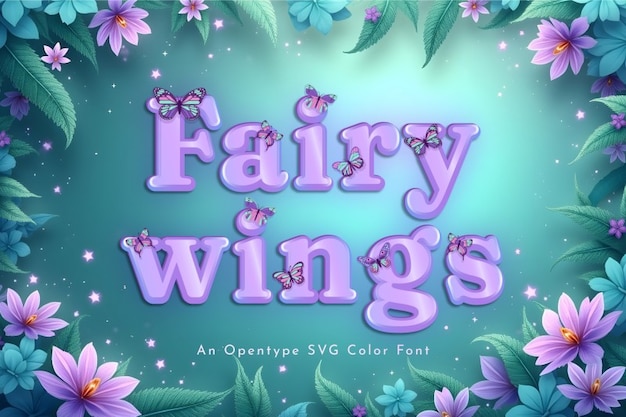
Fairy Wings Font
Fairy Wings is a whimsical font inspired by the delicate beauty of butterfly wings and the enchantment of mystical realms. Its playful curves and intricate details create a magical, cute aesthetic, perfect for fairy-tale designs, children’s projects, or fantasy themes. Let Fairy Wings bring a touch of wonder and charm to your creative endeavors!